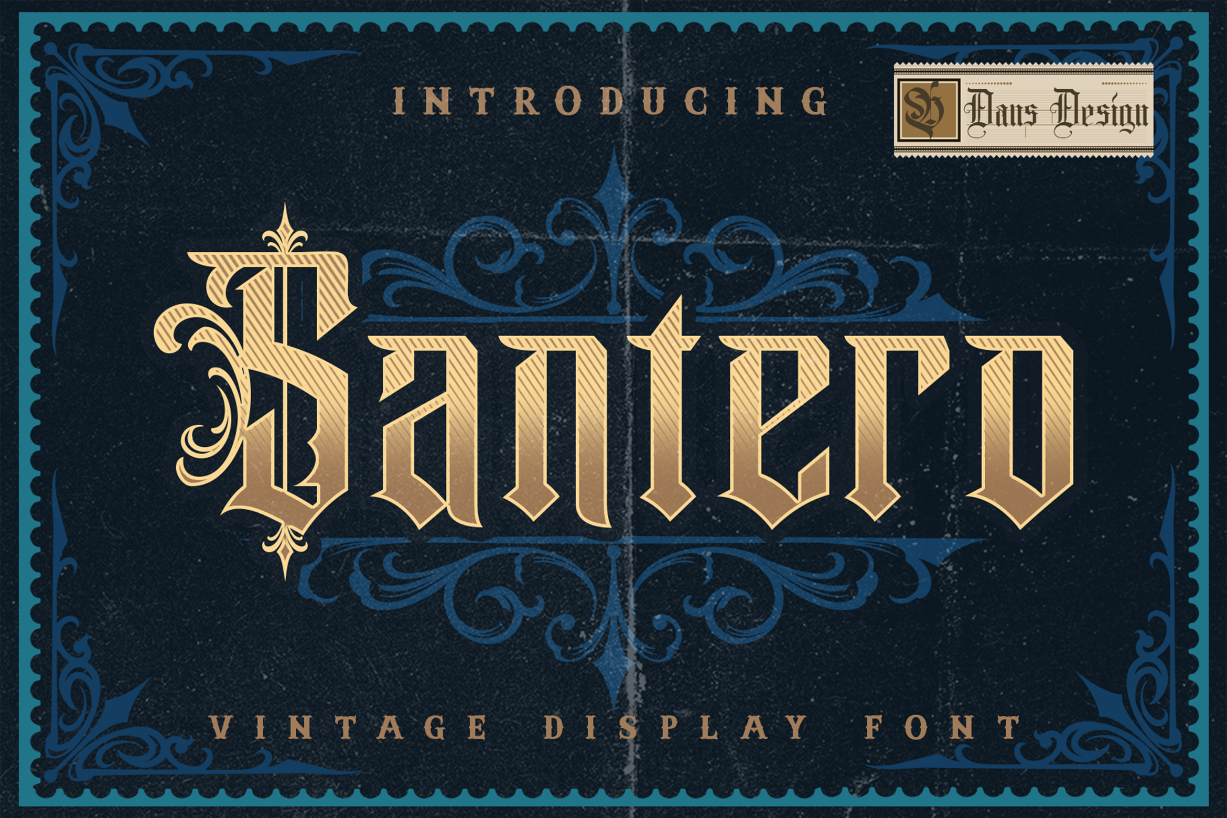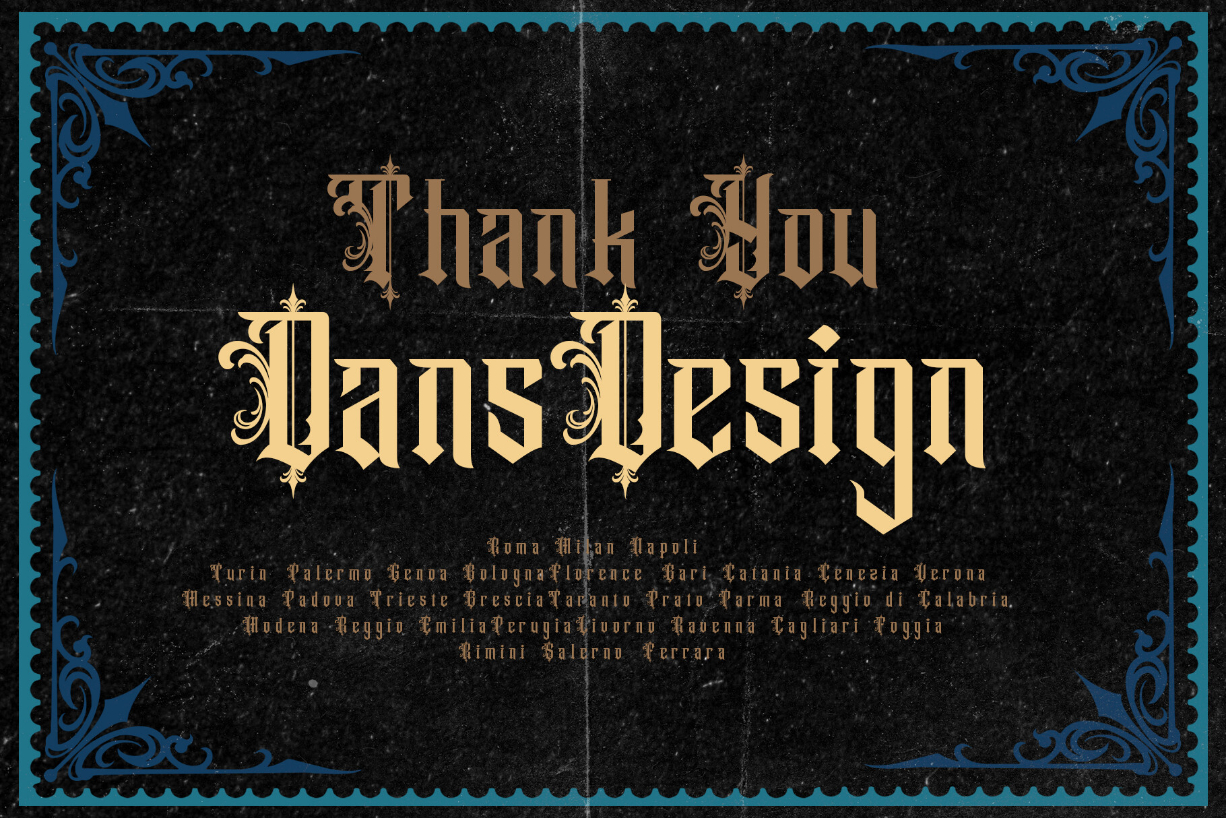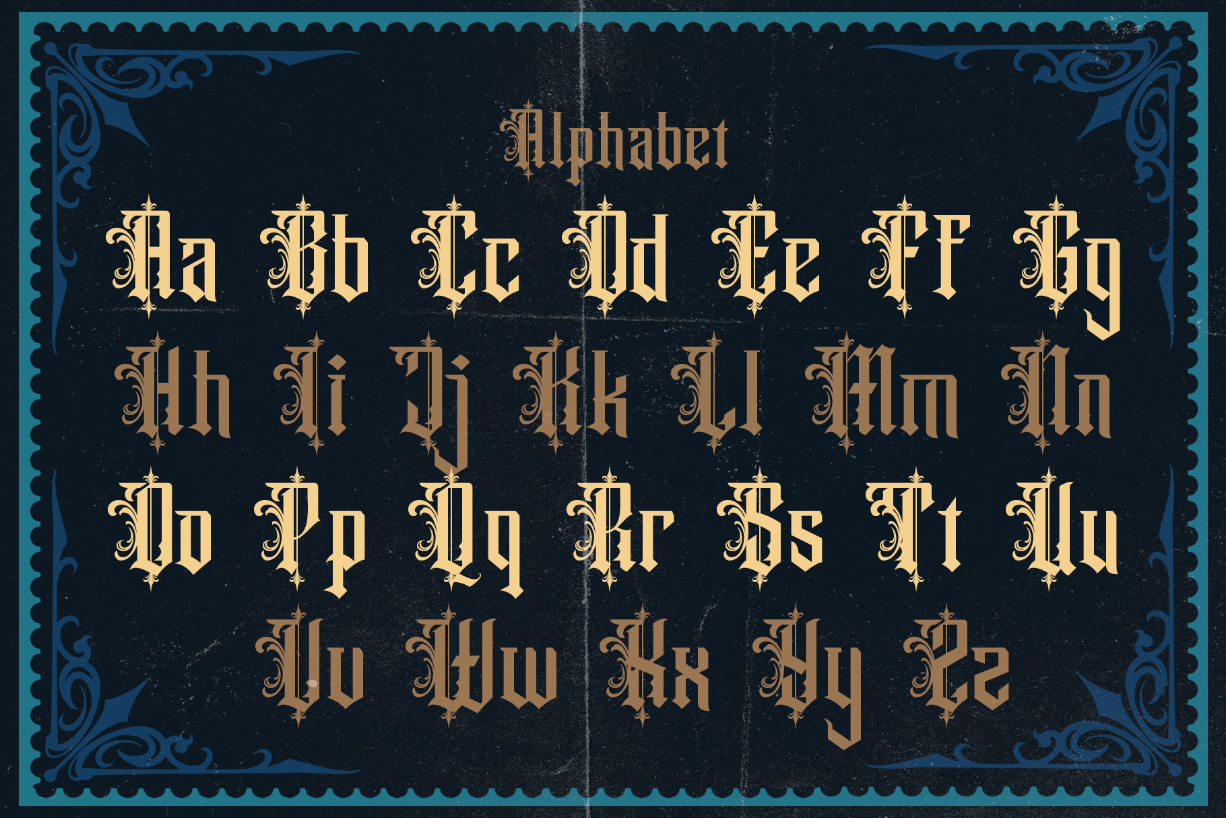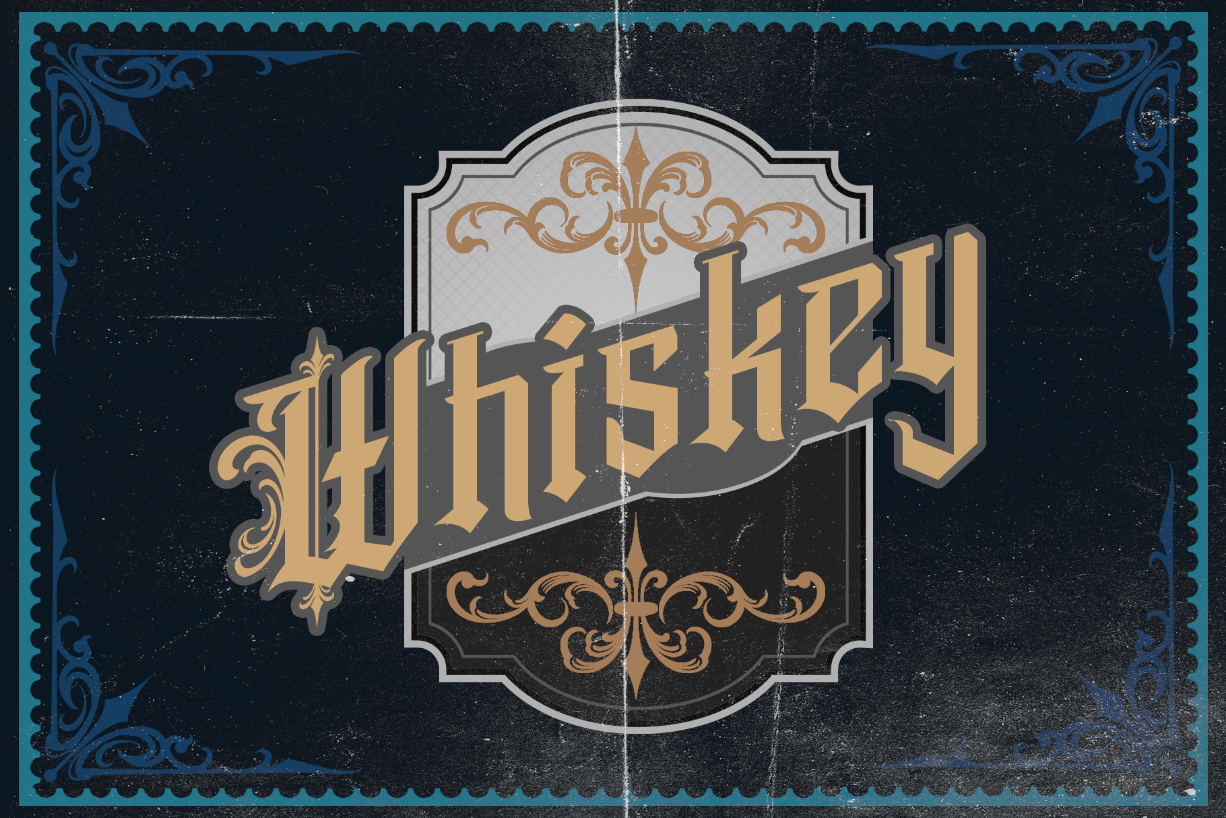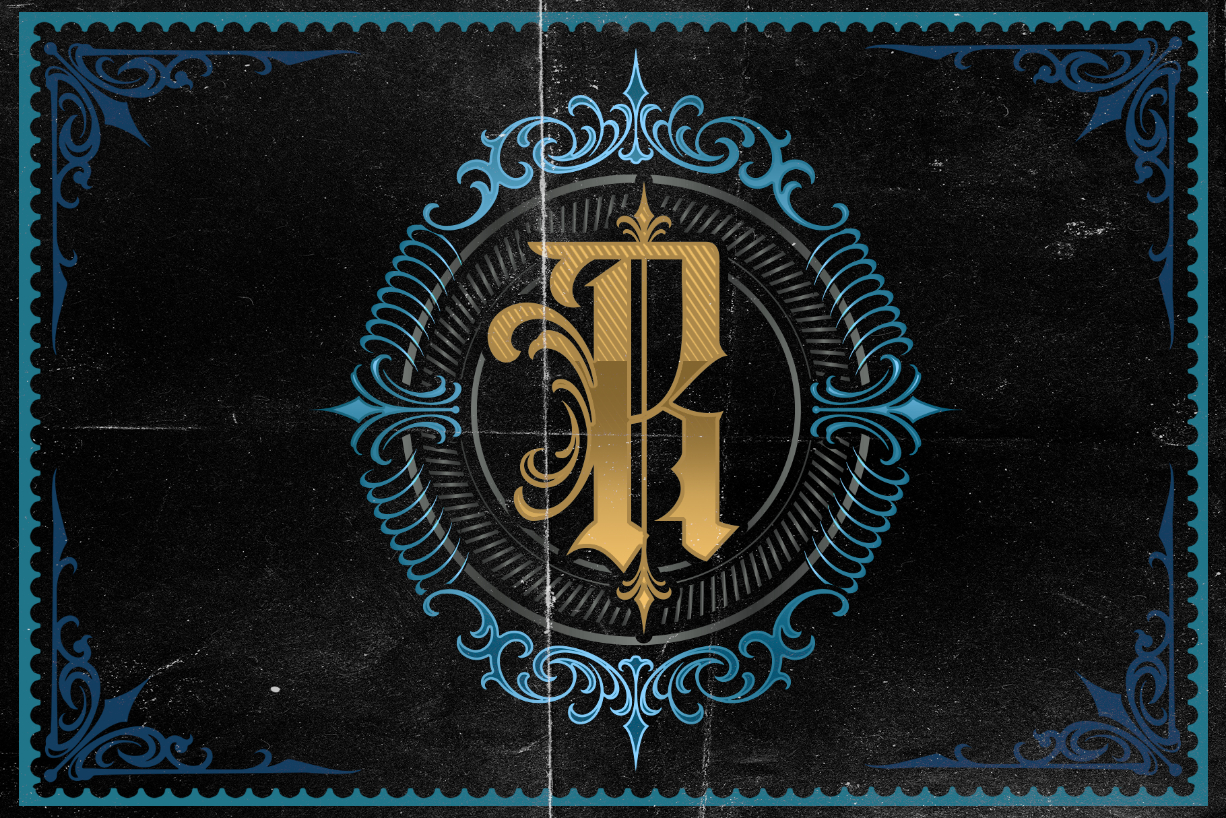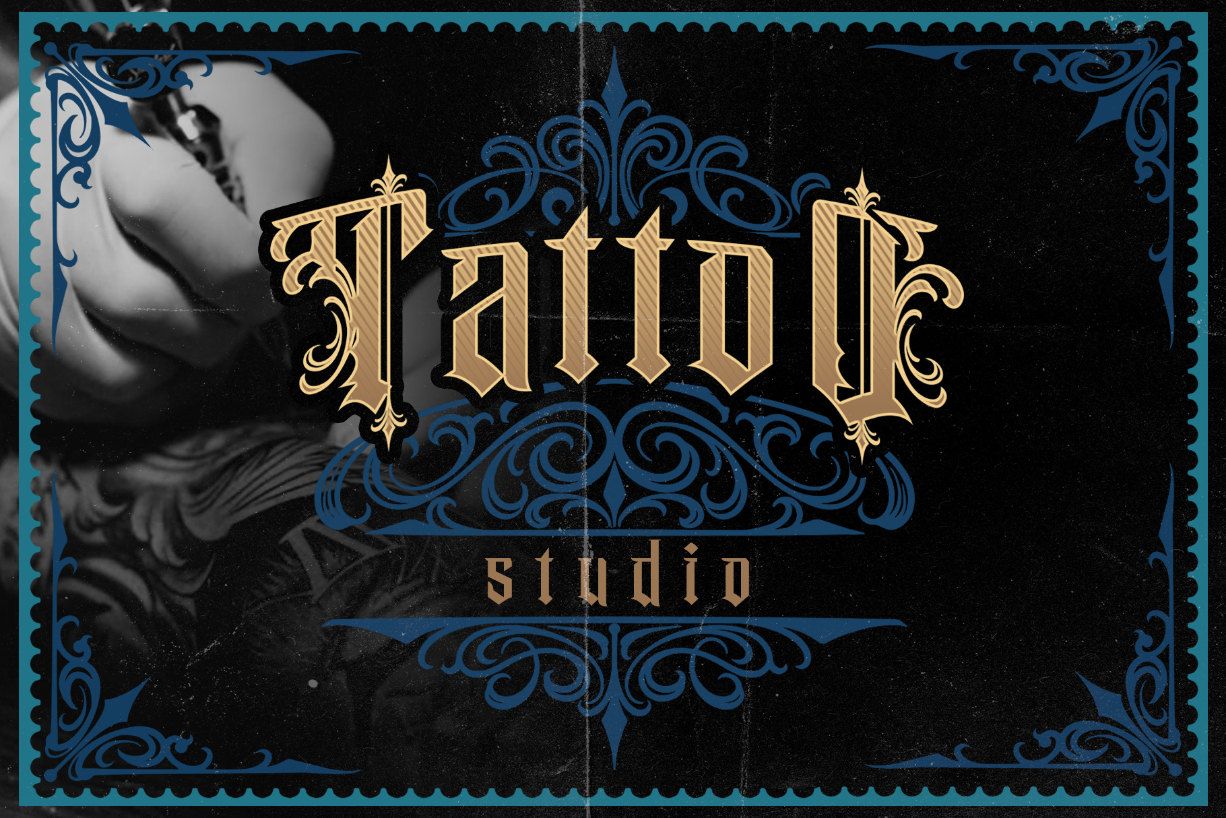
Santero Modern Font
About Santero Modern Font
Santero Modern is a bold and thick lettered blackletter font. Add it confidently to your projects, and you will love the results.